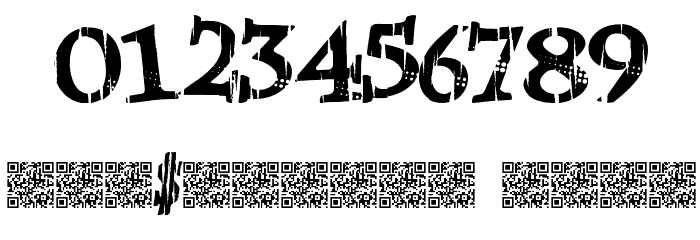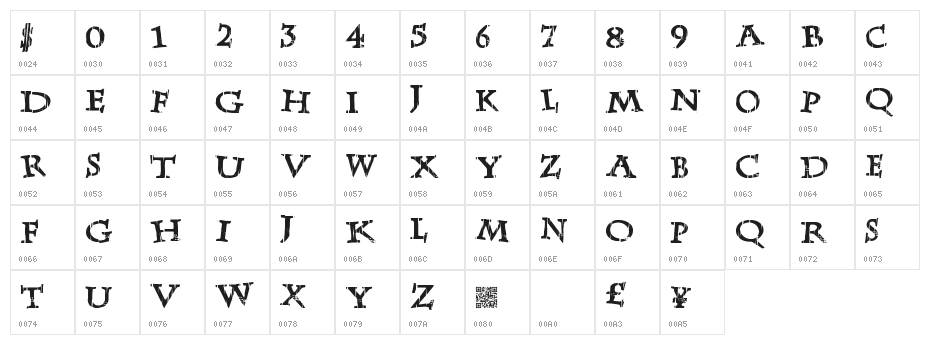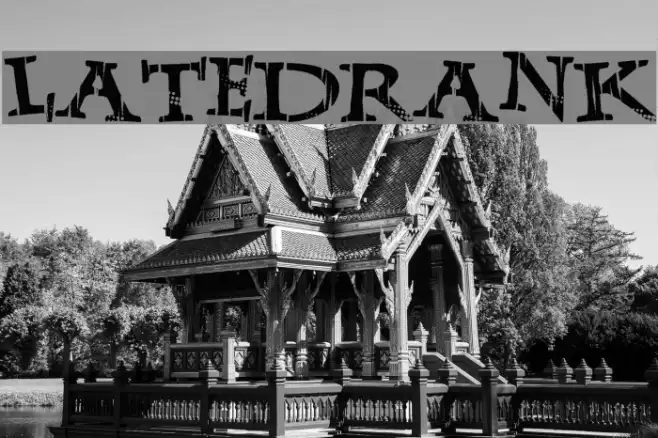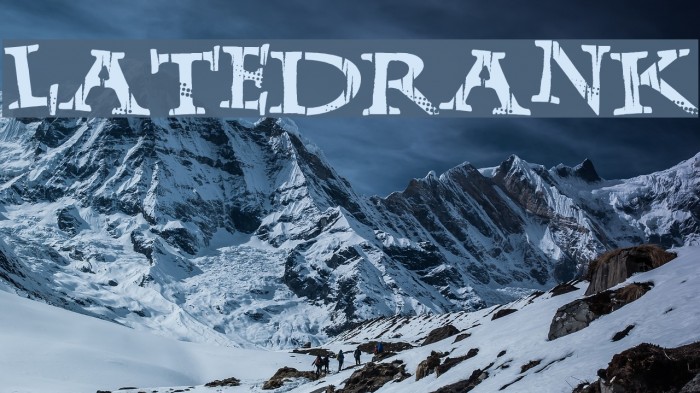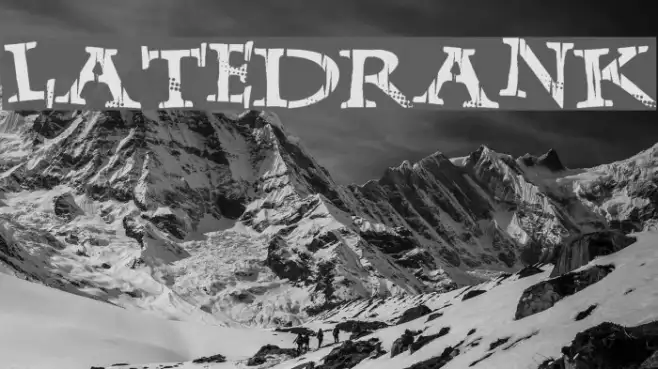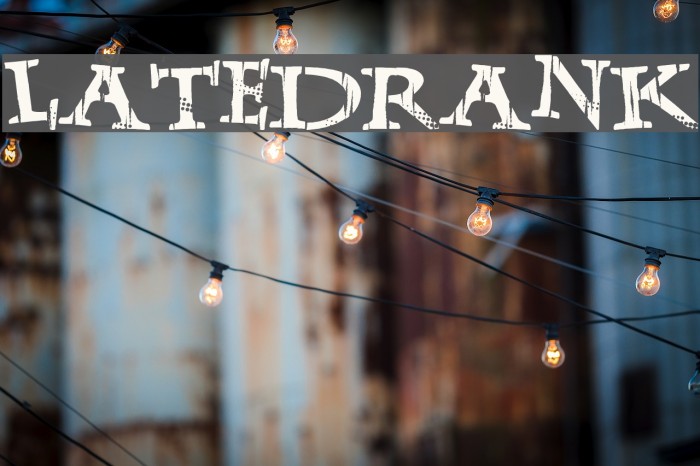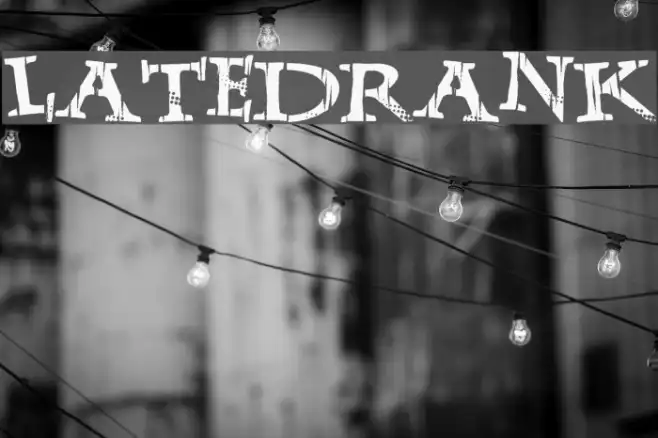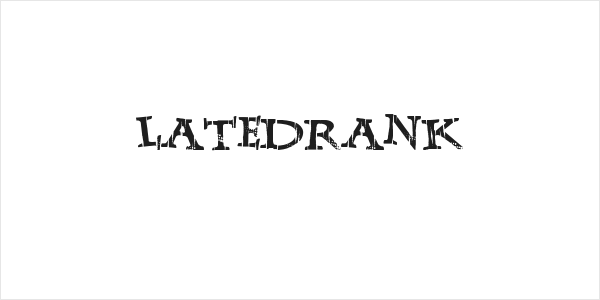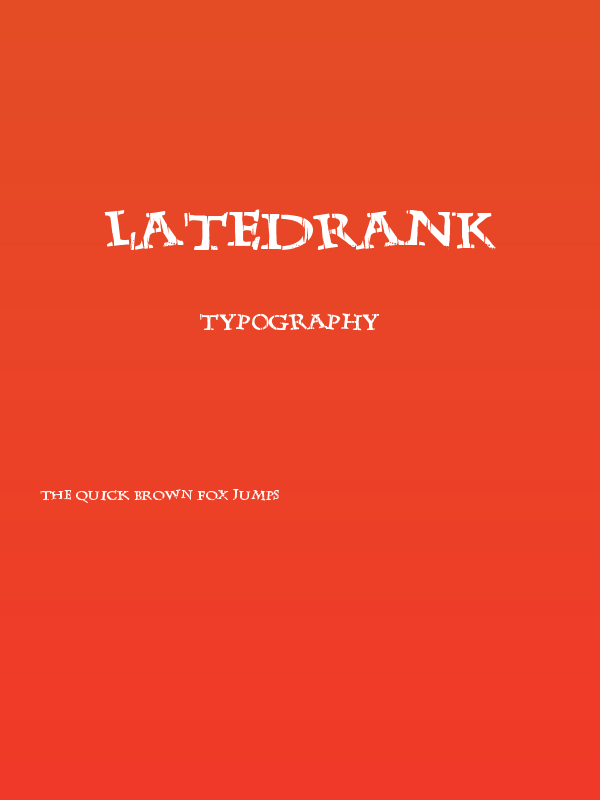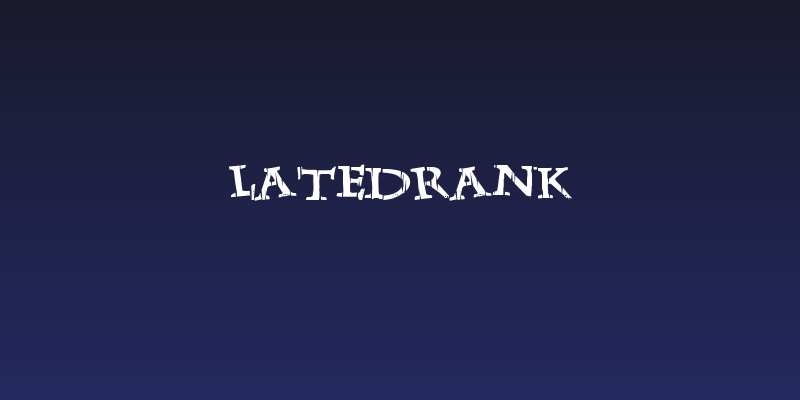
LateDrank Font
LateDrank Description
This font features a distressed, grunge style with a bold and impactful appearance. The characters are slightly skewed, giving a dynamic and edgy feel. The texture within each letter adds a rugged, worn-out look, making it ideal for designs that require a raw and authentic touch. The uppercase and lowercase letters maintain a consistent style, with numerals and special characters following the same aesthetic. This font is perfect for projects that aim to convey a sense of rebellion or nonconformity.
| Overall Style | Grunge, Edgy |
| Use Case | Logos, Posters, Branding |
| Proposed Projects | Ideal for music album covers, streetwear branding, posters, and edgy graphic designs. |